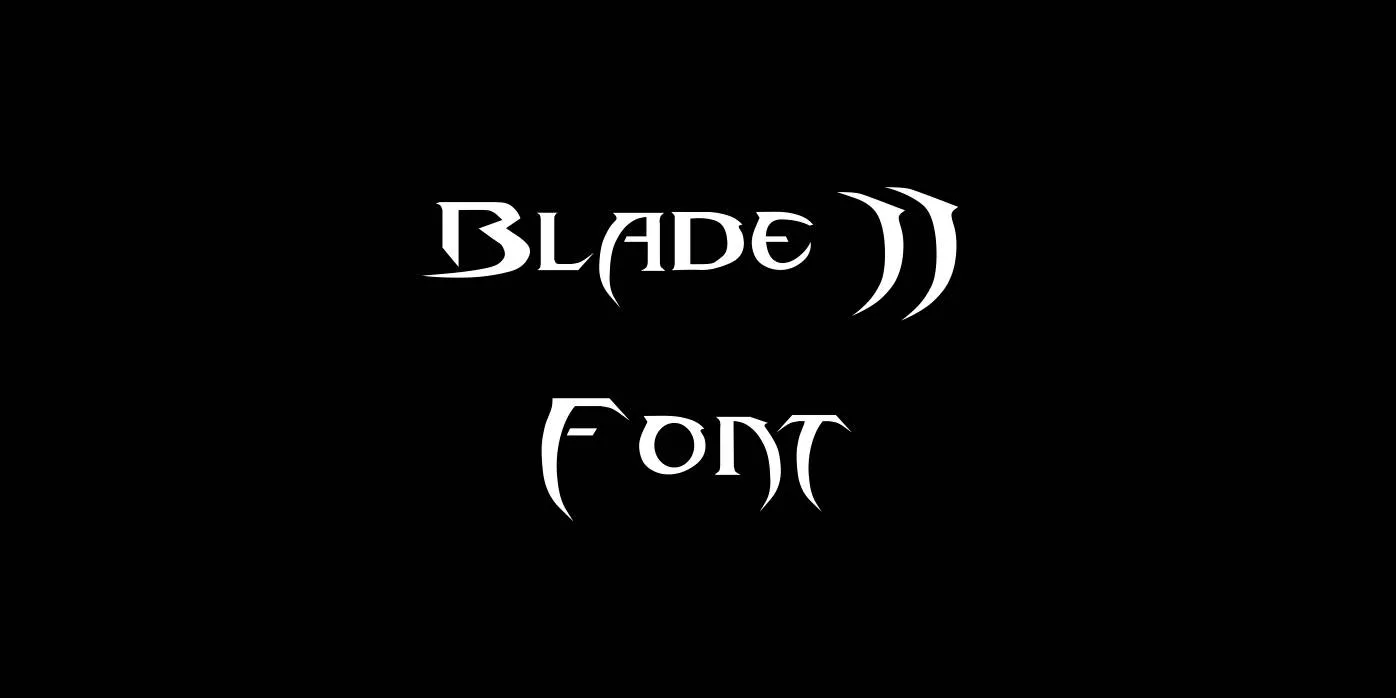
Blade 2 Font
It is a very different and unique font. Blade 2 was designed by Jens R.Ziehn and launched by Filim Himmel. It was designed for a movie named Blade II. This font is used mostly for private purposes.
It is a gothic font with a modern and unique look. Total glyphs have 63, characters 66 and the number of units per Em is 2048. It allows embedding rights for permanent installation. The weight of the font is Medium (normal) and the width of the font is Expanded.
The direction of the glyphs is only left to right strongly. The patterned nature of this font is regular and the pitch is not monospaced. It can be paired with other fonts like viking font to give a very sharp and attractive look. This font can be downloaded on many devices such as Windows, Mac, Android, etc.